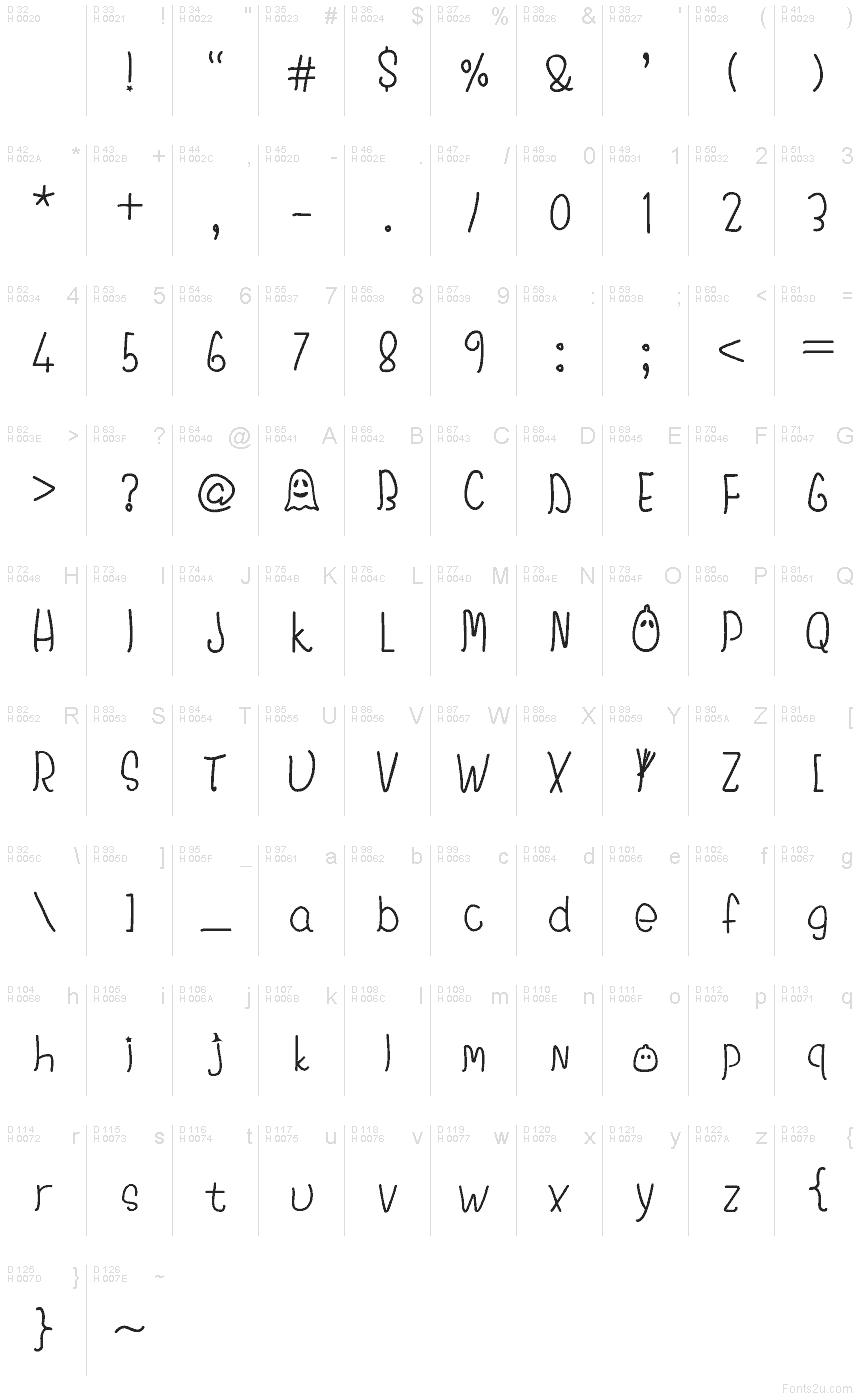
SDBoo Regular
SDBoo font by Suhee Hwang is a free Halloween display font with a cheerful shiver. Its bouncy, hand‑drawn strokes feel like inky doodles, and the rounded shapes sprout tiny “eyes” that read as friendly ghosts or mini pumpkins. The spacing stays open and breezy, so headlines pop without turning messy—great when you need spooky without the gore.
Using SDBoo, your party invites, trick‑or‑treat bags, classroom posters, social posts, candy labels, and sticker sheets all gain a warm, giggly haunt. The rhythm is playful yet readable at larger sizes, where the eyes and outlines really sing. Pair this free font with a simple, clean sans for body copy to keep the whimsy grounded.